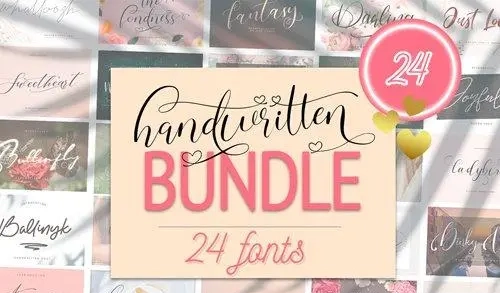
Handwritten Font Bundle – 24 Premium Fonts
Elevate your design projects with our Handwritten Font Bundle, featuring 24 premium fonts that capture the essence of authentic handwriting. Perfect for a variety of applications, these fonts are ideal for branding, logos, web design, print materials, and user interfaces.
• 24 unique handwritten font styles
• Includes various weights and styles for versatility
• Easy to read and visually appealing
Each font in this bundle has been crafted with attention to detail, ensuring that your text stands out. The collection ranges from casual scripts to elegant cursive styles, providing options for any creative project.